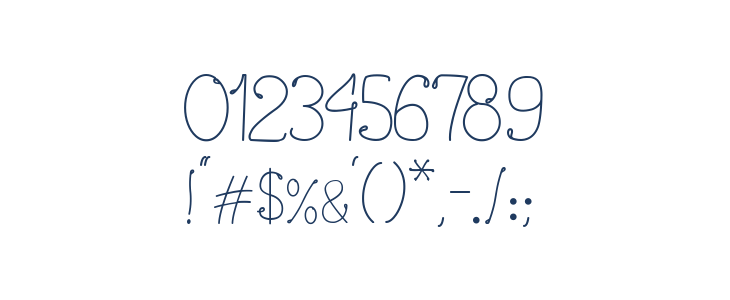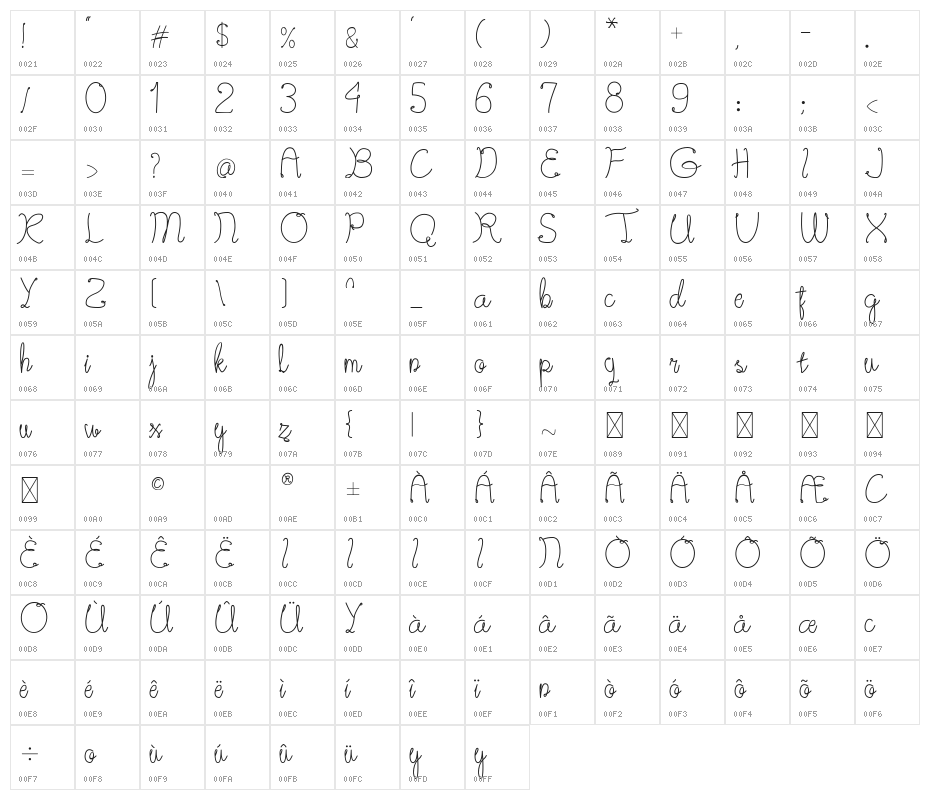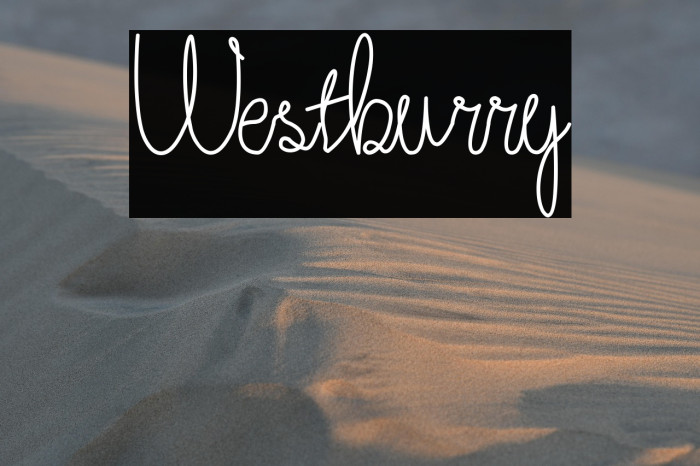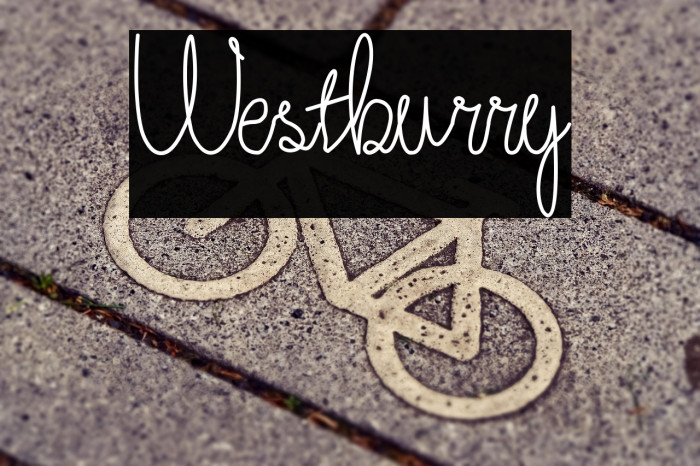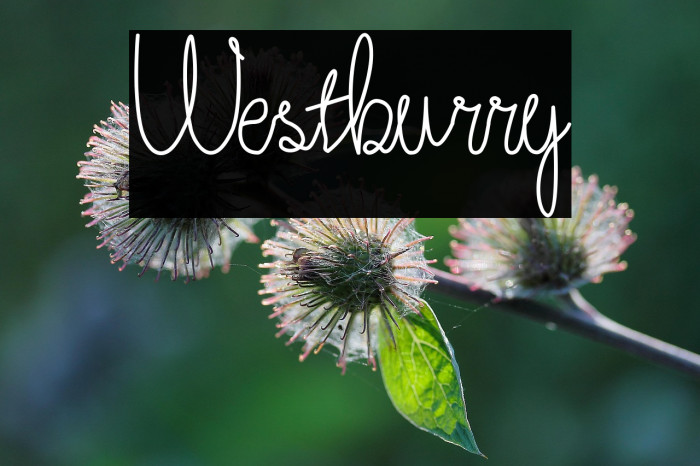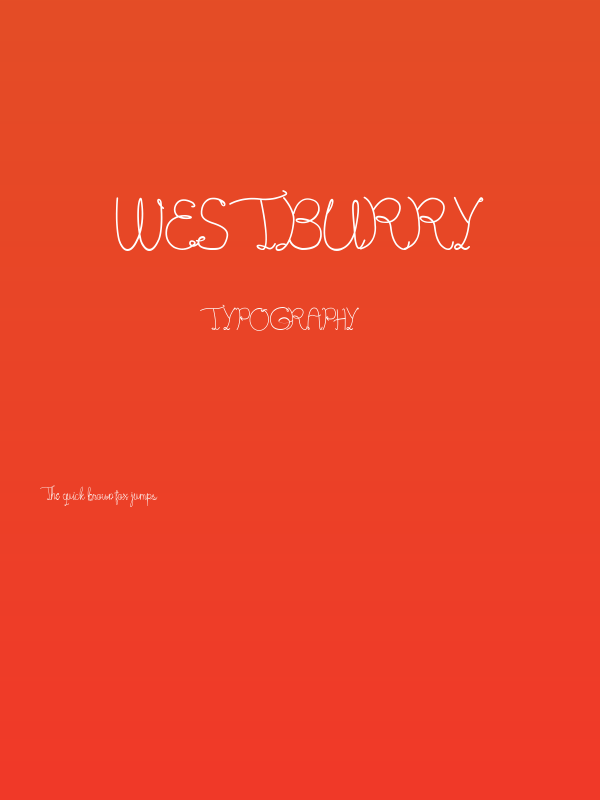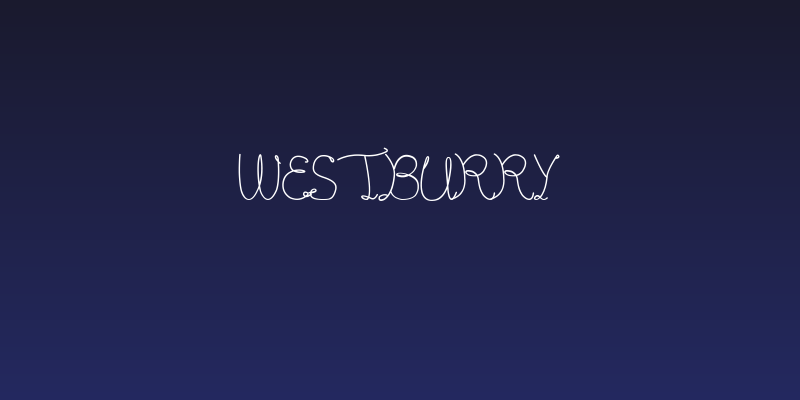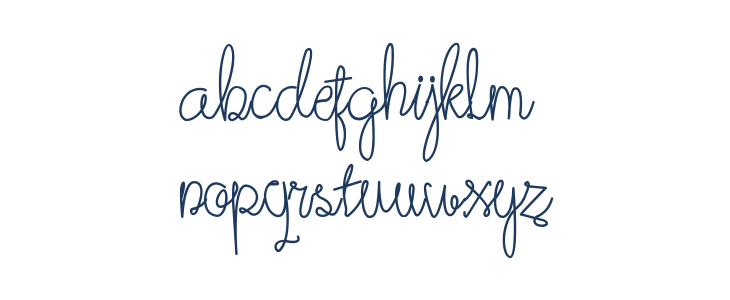
Westburry Font
Westburry Description
This font features a whimsical and playful script style with a unique twist. Each character is adorned with small loops and curls, giving it a decorative and artistic flair. The uppercase letters are elegantly curved, while the lowercase letters maintain a consistent flow, enhancing readability. The numerals are distinct and maintain the same playful style, making them suitable for creative projects. Special characters are also designed with the same attention to detail, ensuring a cohesive look across all text elements.
| Use Case | Logos, Invitations, Artistic Projects |
| Proposed Projects | Ideal for greeting cards, invitations, playful branding, and artistic posters. |